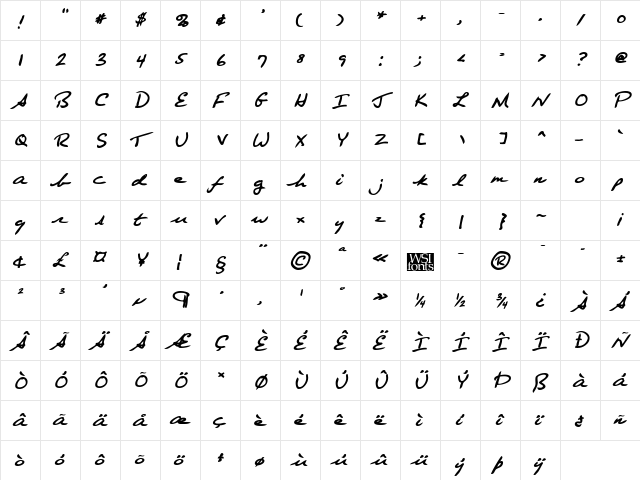
EdgertonsHand Bold Italic Font Preview
EdgertonsHand Bold Italic
Design Context for EdgertonsHand Typeface
EdgertonsHand brings a calligraphic fluidity to the page — its connecting strokes and expressive curves give it an unmistakably human quality. Its bold stroke weight gives it real presence on the page.
Font Pairing: Combine EdgertonsHand with a simple geometric sans for maximum contrast — the tension between flowing curves and clean structure is a classic typographic pairing.
Pro Tip: Use EdgertonsHand for short runs of text — names, titles, or taglines. Extended body copy in script faces tires the eye quickly.